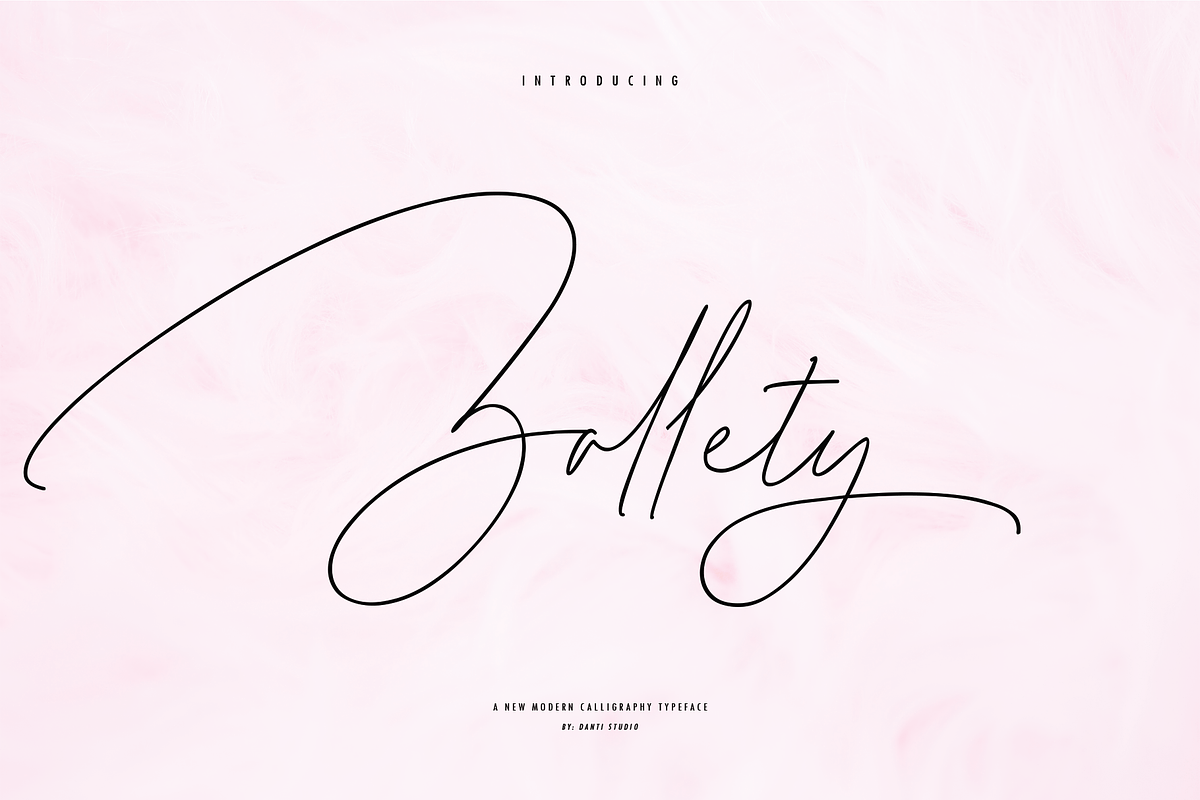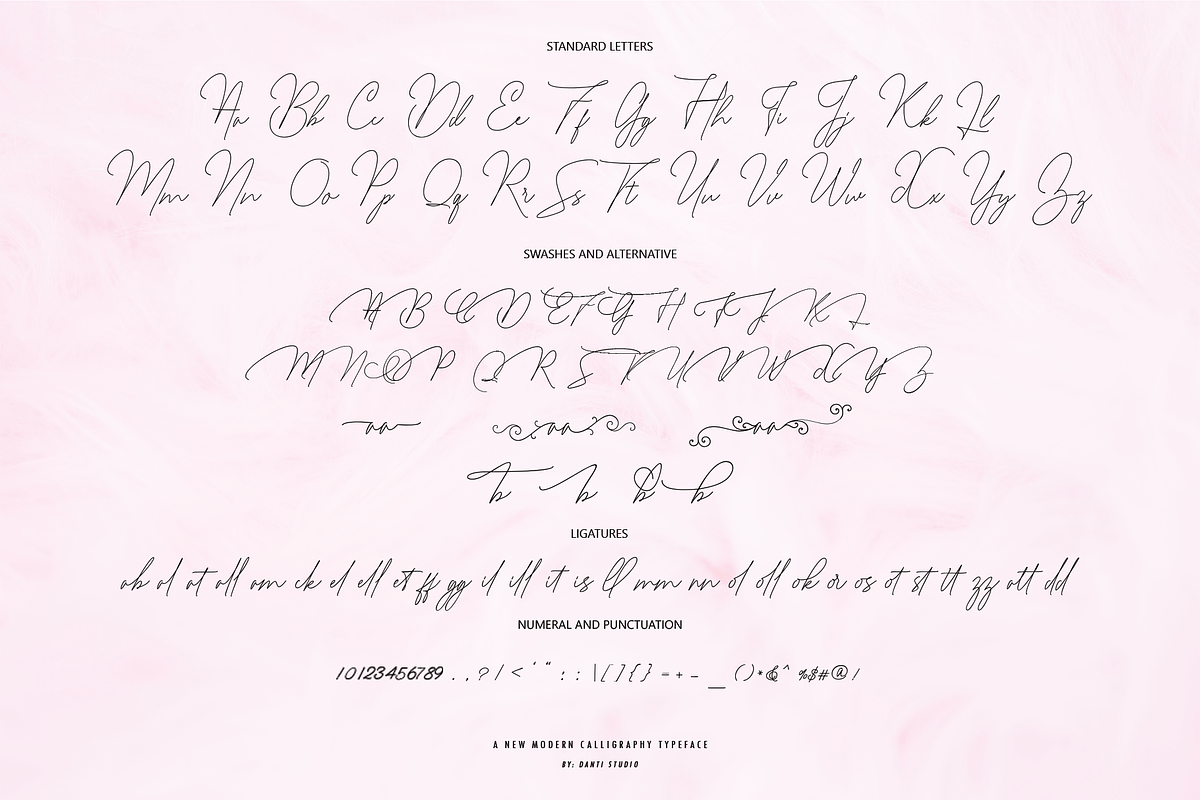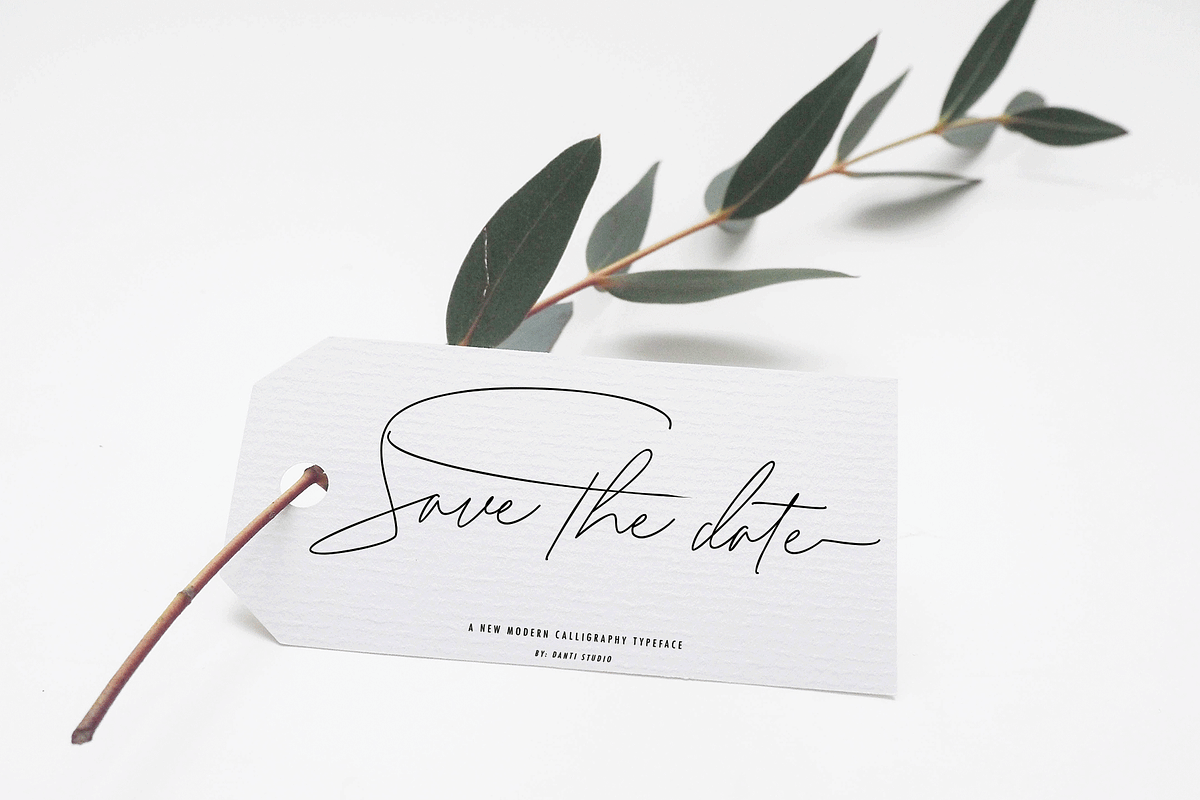
Zallety Signature
Zallety, a work that is purely handwritten, has natural characteristics. This is perfect for wedding invitations, signatures, t-shirts, letterhead, signage, labels, news, posters and other product brands, so it will be perfect for all types of printing techniques.
Zallety is full of art and style, which includes a complete set of elegant upper and lower case letters, beginning and ending of lowercase swash, symbols, numbers, punctuation marks, + ligatures, alternates.